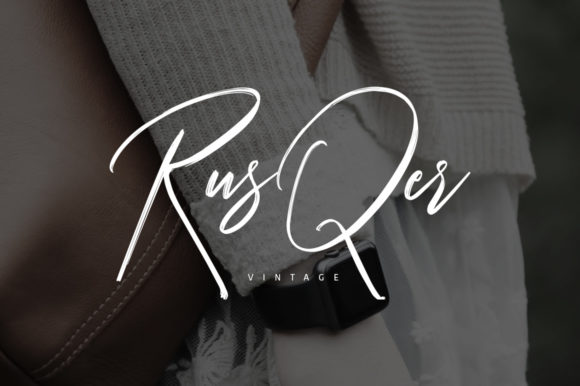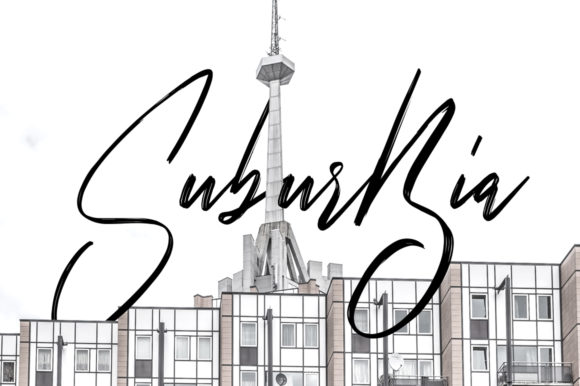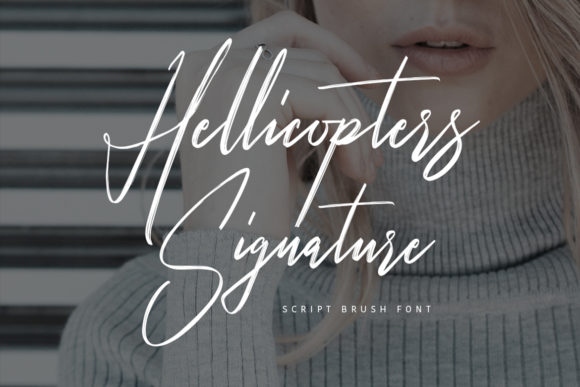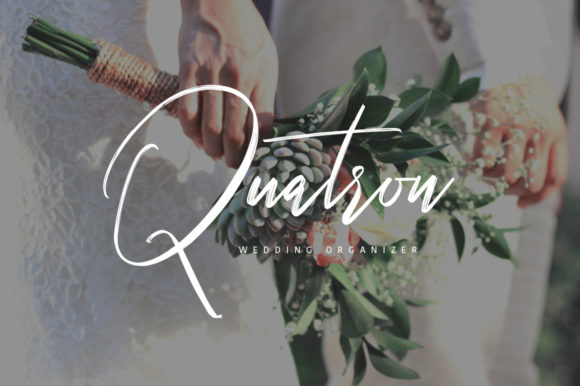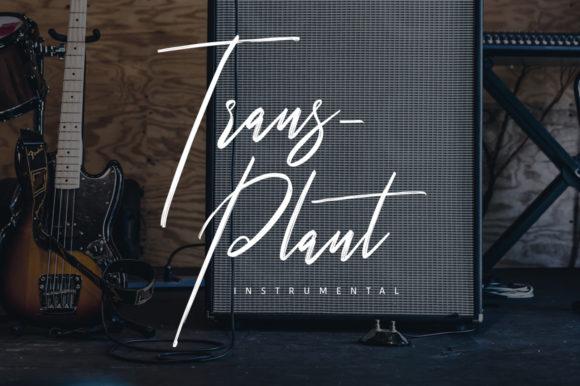
Introducing Hellicopters Font: A Handwritten Brush Font with a Down-to-Earth Charm
Are you tired of using the same old fonts in your designs? Look no further than Hellicopters Font, a beautiful handwritten font with a brush feel that’s sure to add a touch of casual charm to your projects. With its wonderfully down-to-earth and readable style, Hellicopters Font is incredibly versatile and perfect for designers and crafters looking to add a personal touch to their work.
What Makes Hellicopters Font So Special?
Hellicopters Font is a unique and eye-catching font that’s been carefully crafted to mimic the look and feel of handwritten text with a brush. Its casual, laid-back style makes it perfect for a wide range of design projects, from social media graphics and blog posts to invitations, packaging, and more. Whether you’re looking to add a touch of whimsy or create a more rustic, homespun feel, Hellicopters Font is the perfect choice.
Key Features of Hellicopters Font
- Handwritten with a brush feel: Hellicopters Font has a beautiful, hand-crafted look that’s reminiscent of text written with a brush. Its unique texture and feel make it stand out from more traditional fonts.
- Casual and down-to-earth: With its relaxed, laid-back style, Hellicopters Font is perfect for designers and crafters who want to add a touch of personality to their work.
- Readable and versatile: Despite its casual charm, Hellicopters Font is incredibly readable, even at smaller sizes. This makes it perfect for use in a wide range of design projects.
How to Use Hellicopters Font in Your Designs
Hellicopters Font is incredibly easy to use and can be incorporated into a wide range of design projects. Here are a few ideas to get you started:
- Social media graphics: Add a touch of personality to your social media graphics with Hellicopters Font. Use it to create eye-catching posts, stories, and ads that stand out from the crowd.
- Blog posts and articles: Use Hellicopters Font to add a touch of whimsy to your blog posts and articles. Its casual style makes it perfect for lifestyle, fashion, and food blogs.
- Invitations and events: Create beautiful, rustic invitations and event materials with Hellicopters Font. Its down-to-earth style makes it perfect for weddings, baby showers, and other celebrations.
- Packaging and branding: Use Hellicopters Font to create unique and eye-catching packaging and branding materials. Its versatility makes it perfect for a wide range of products and industries.
Tips for Getting the Most Out of Hellicopters Font
To get the most out of Hellicopters Font, here are a few tips to keep in mind:
- Experiment with different sizes: Hellicopters Font is incredibly versatile and can be used at a wide range of sizes. Experiment with different sizes to find the one that works best for your project.
- Pair it with other fonts: Hellicopters Font pairs beautifully with other fonts, especially serif and sans-serif fonts. Experiment with different pairings to find the one that works best for your project.
- Use it in combination with images: Hellicopters Font looks beautiful when used in combination with images, especially those with a rustic or vintage feel.
Hellicopters Font is a beautiful, handwritten font with a brush feel that’s perfect for designers and crafters looking to add a touch of casual charm to their work. With its wonderfully down-to-earth and readable style, it’s incredibly versatile and can be used in a wide range of design projects. Whether you’re looking to create social media graphics, blog posts, invitations, or packaging, Hellicopters Font is the perfect choice.